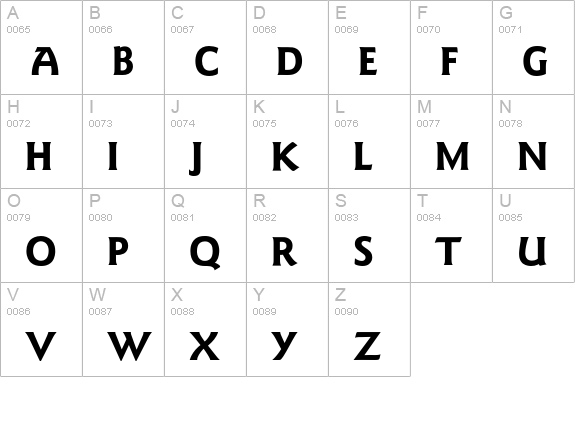
Goudy Sans* Bold Font Details
Goudy Sans* Bold is a strong, high-contrast variant in the Goudy typeface family \xE2\x80\x94 well suited to headlines, attention-grabbing titles, and strong calls-to-action.
Goudy Sans* Bold is a striking and versatile font that exudes modern sophistication and elegance. With its clean lines and bold presence, this typeface is perfect for making a statement in any design project. Whether used for headlines, titles, or branding, Goudy Sans* Bold commands attention and adds a touch of contemporary flair. What sets Goudy Sans* Bold apart is its seamless blend of classic typography with a modern twist, creating a timeless yet contemporary look. The strong and confident letterforms make this font stand out in any setting, while still maintaining a sense of refinement and subtlety. Best of all, Goudy Sans* Bold is available for free download at FontsMarket.com. This means you can easily access and use this exceptional font for your personal and commercial projects without any cost. So why wait? Elevate your designs with Goudy Sans* Bold today and make a lasting impression with its bold and captivating style.